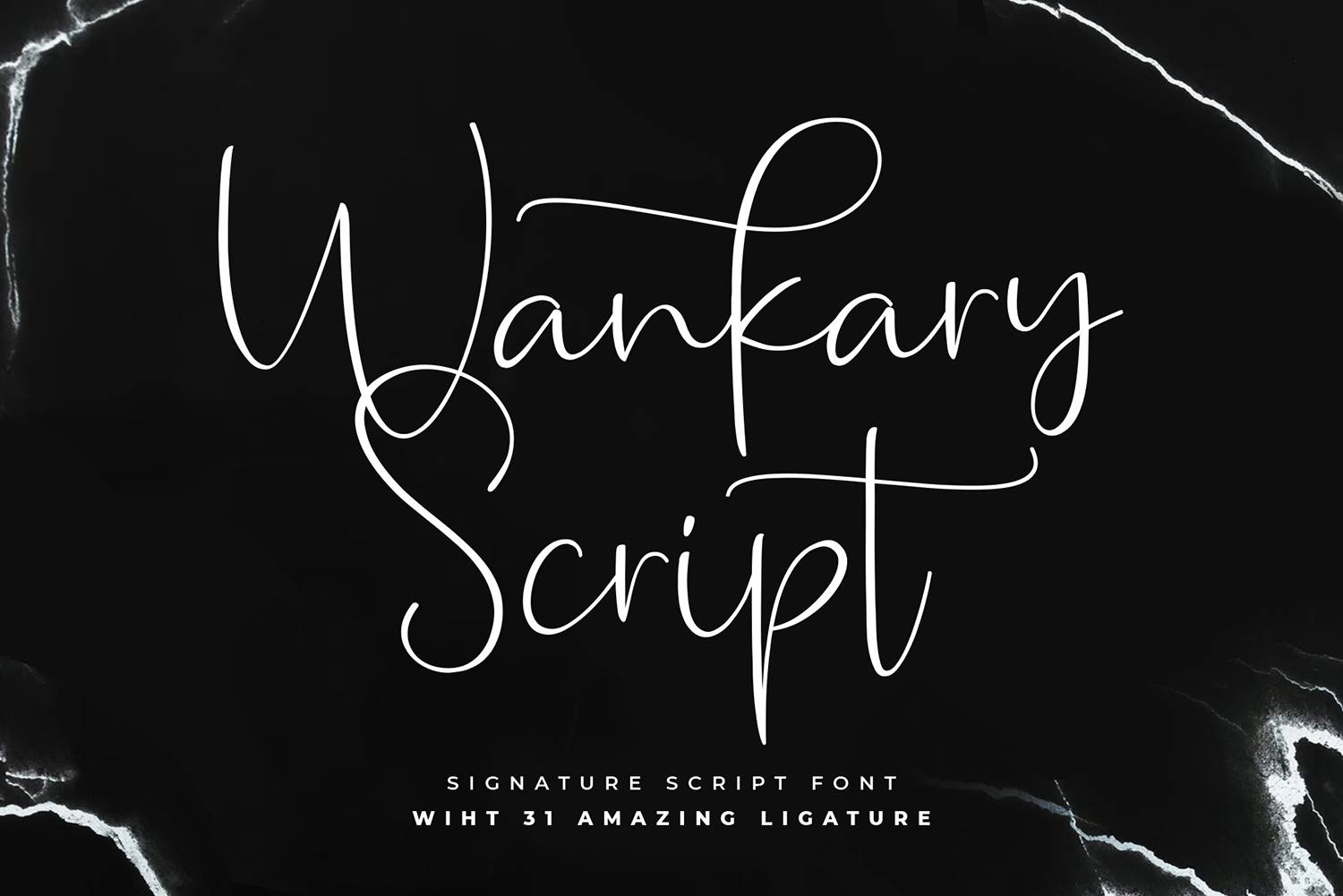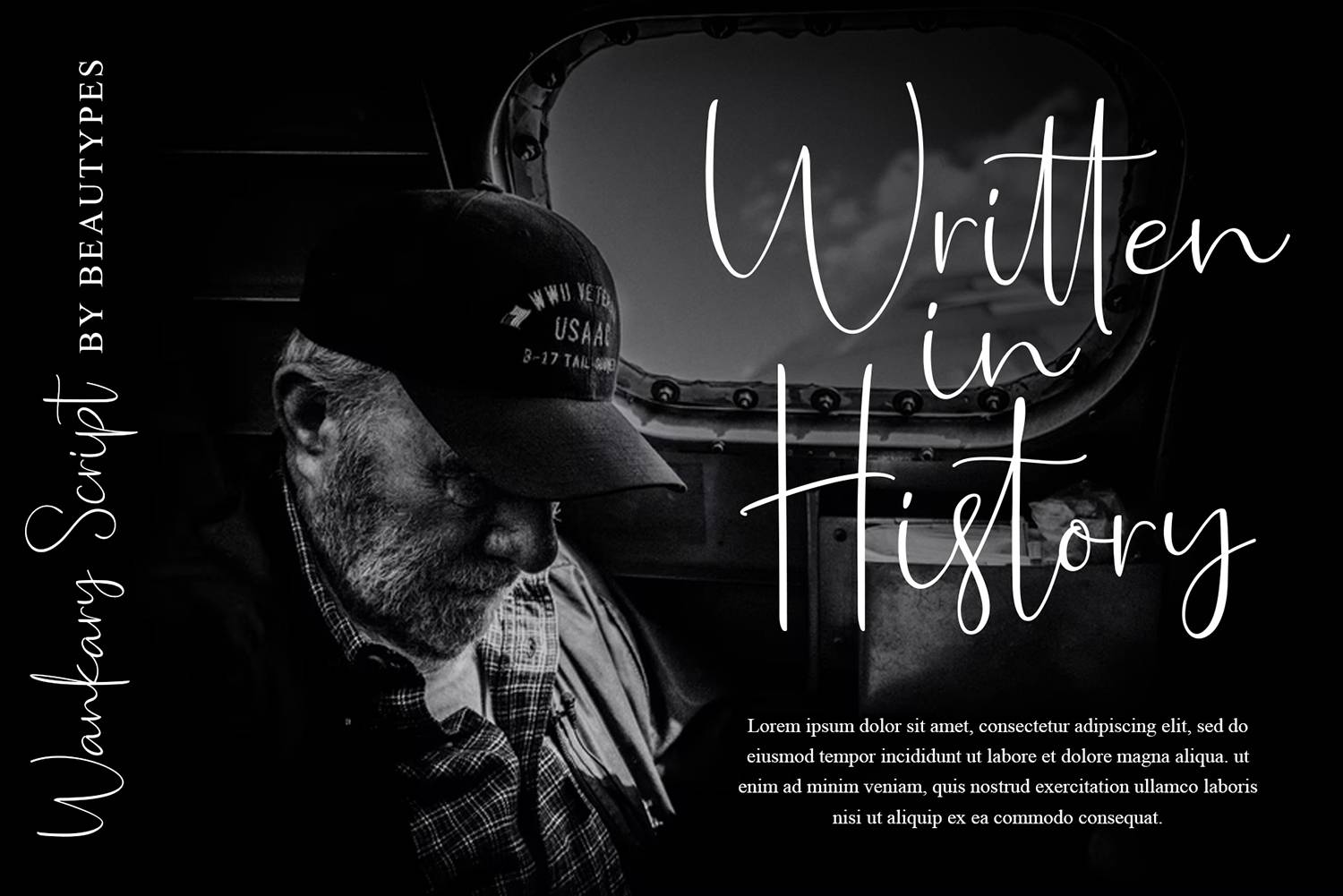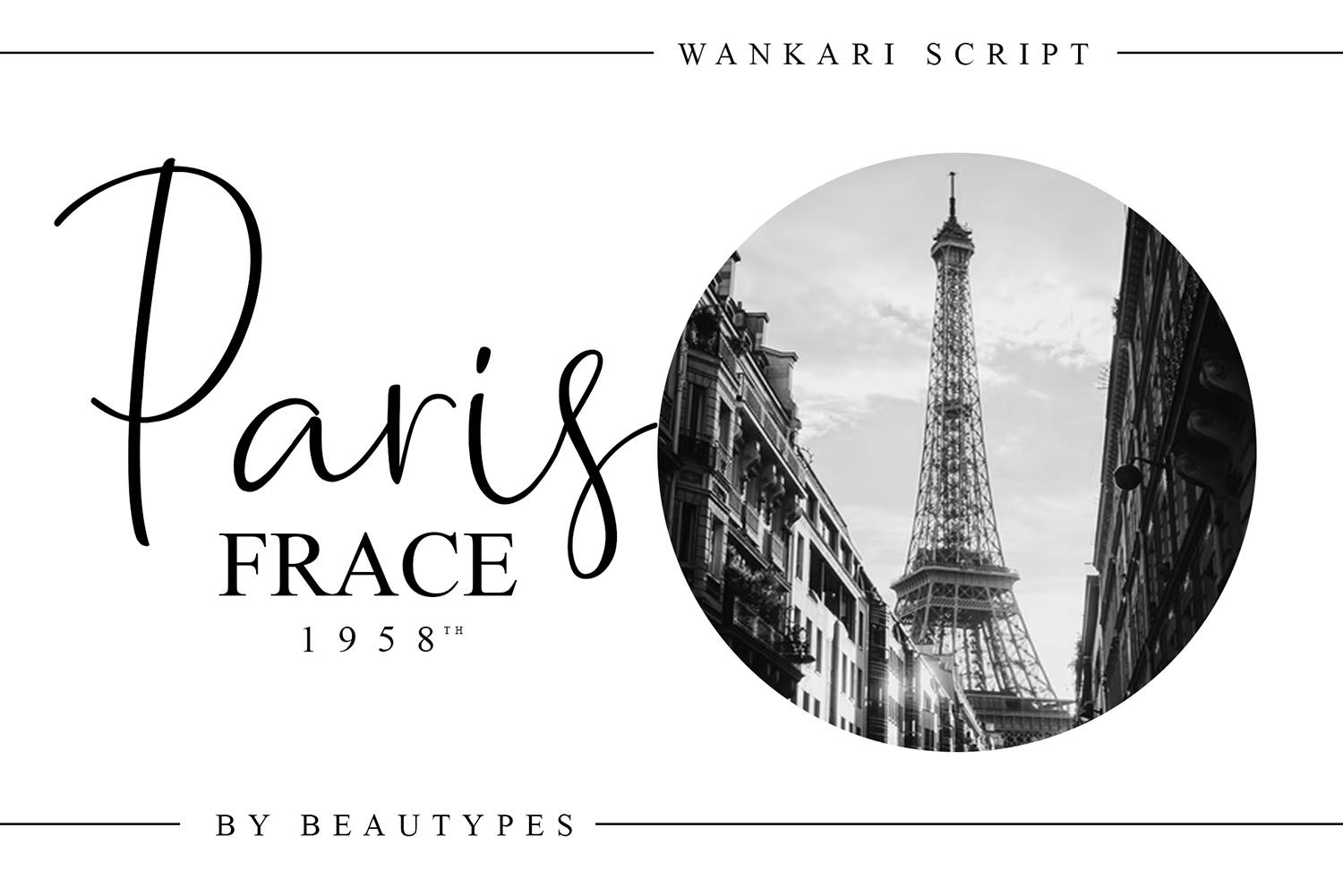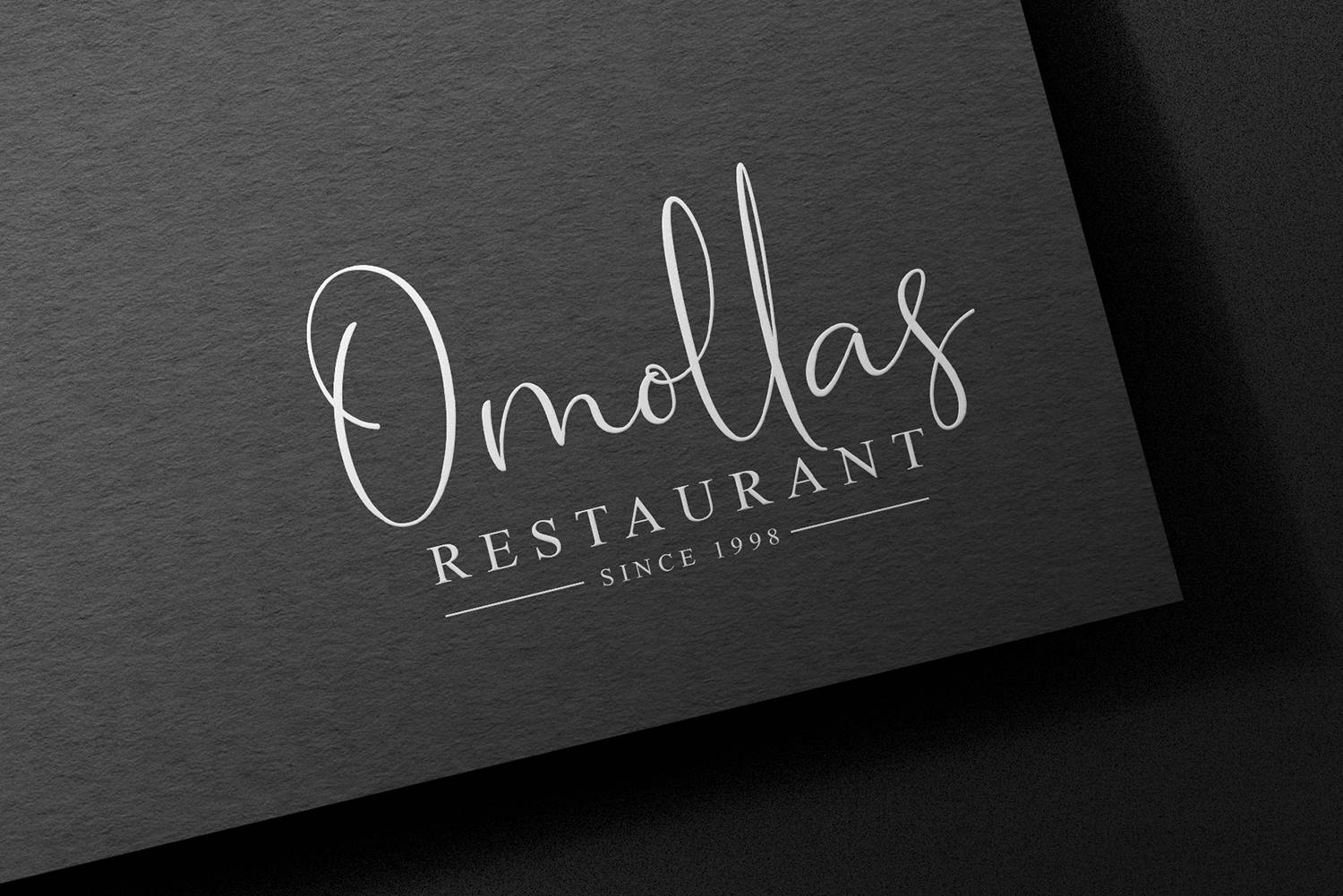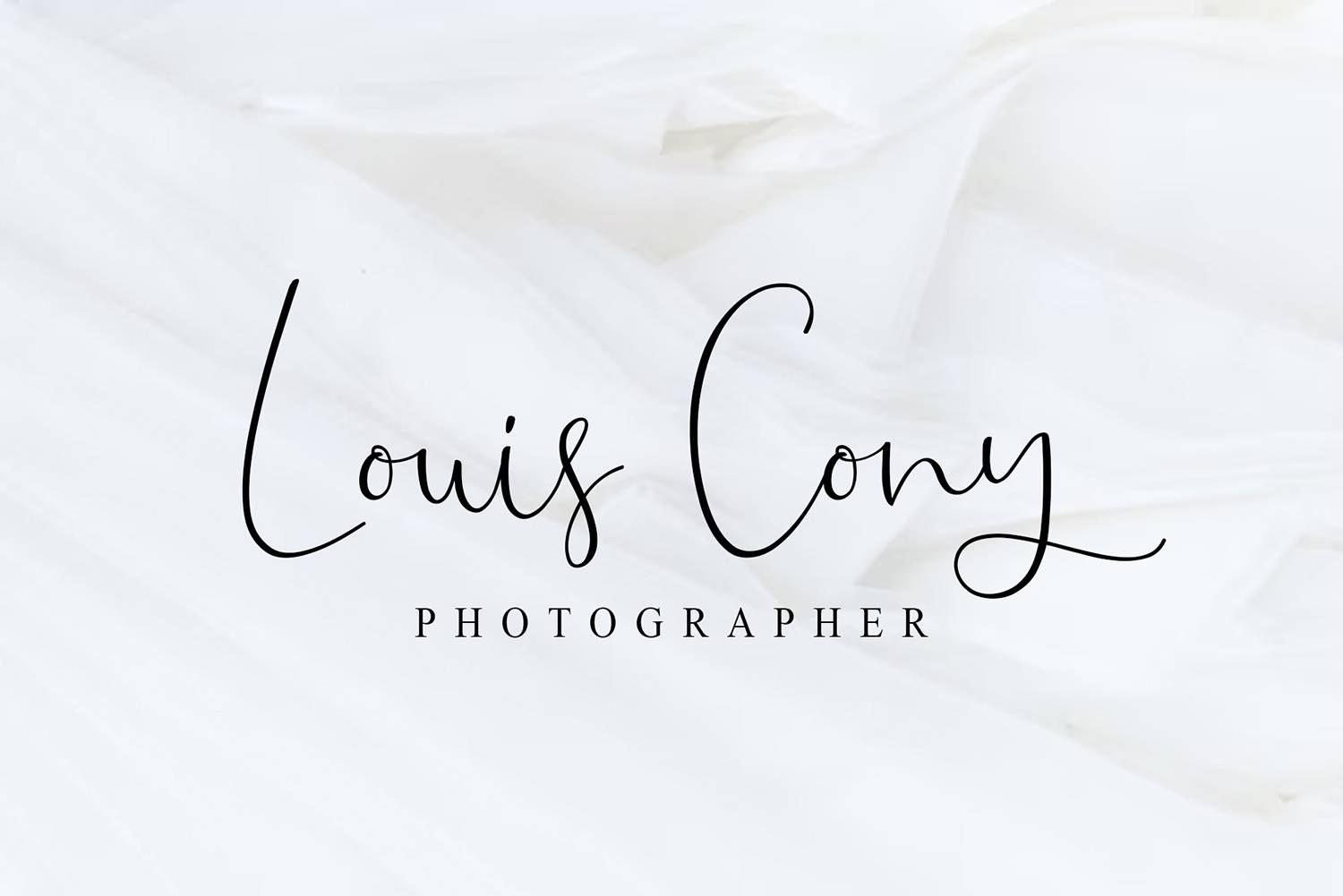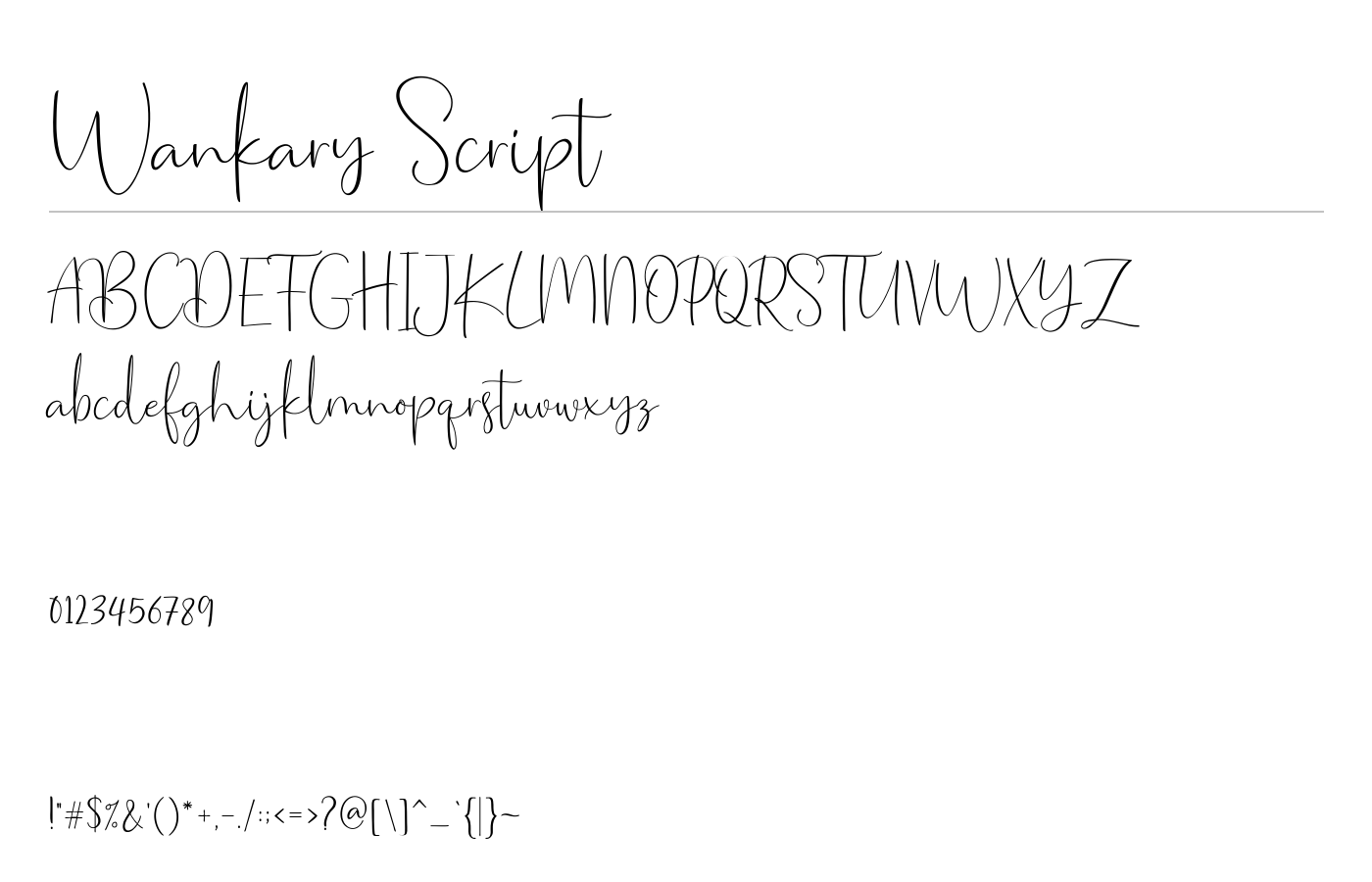
Wankary Script is a delicate, hand-drawn script font with thin, flowing strokes that create an elegant and personal touch. Its tall, slender letterforms and playful loops give it a charming, whimsical feel ideal for invitations, branding, and projects that want a light, friendly, and creative look. This font shines best in decorative uses like logos, greeting cards, and social media graphics where a stylish handcrafted vibe is desired.
Wankary Script Font
About Wankary Script Font
| Font family | Wankary Script Font |
| Designer | Beautypes Studio |